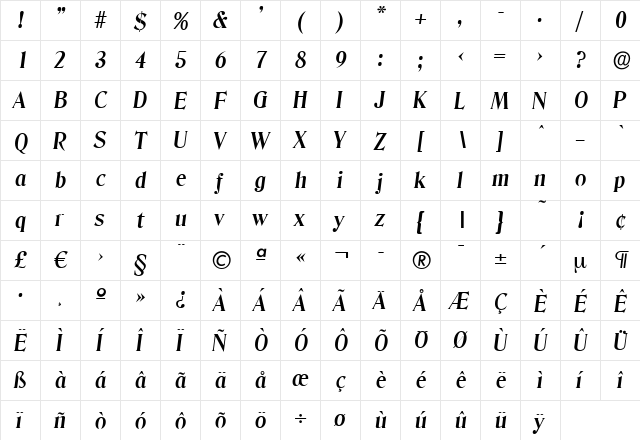
ThomasBecker Bold Italic Font Preview
Design Context for ThomasBecker Typeface
ThomasBecker offers clean, dependable letterforms without strong stylistic allegiance, making it a practical choice for designers who need flexibility. Its italic angle brings a sense of urgency and motion to the letterforms. The heavy weight commands attention and anchors typographic hierarchies.
Pro Tip: Try ThomasBecker for annotation and caption copy alongside an upright companion — the contrast in angle creates a dynamic but ordered typographic system.